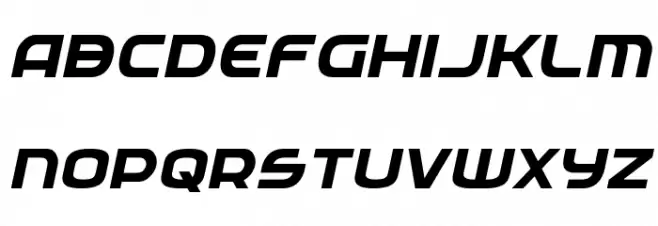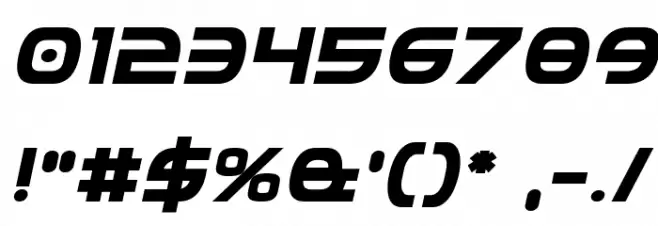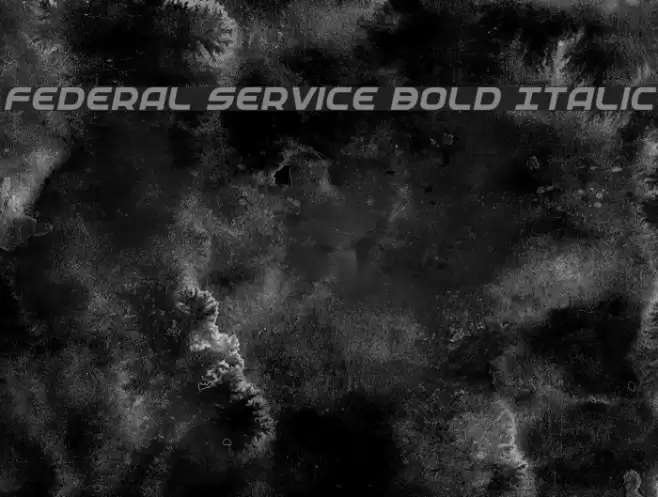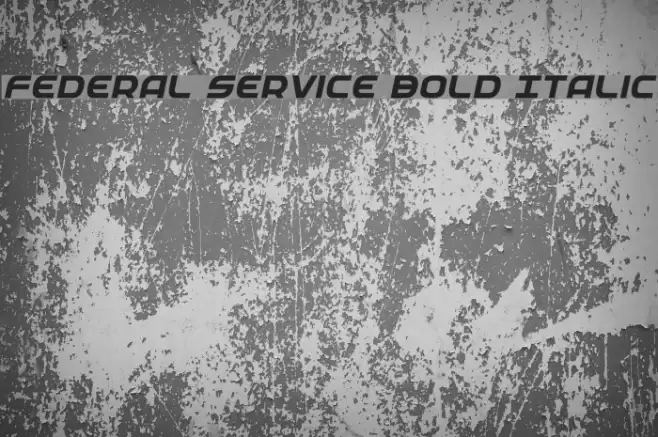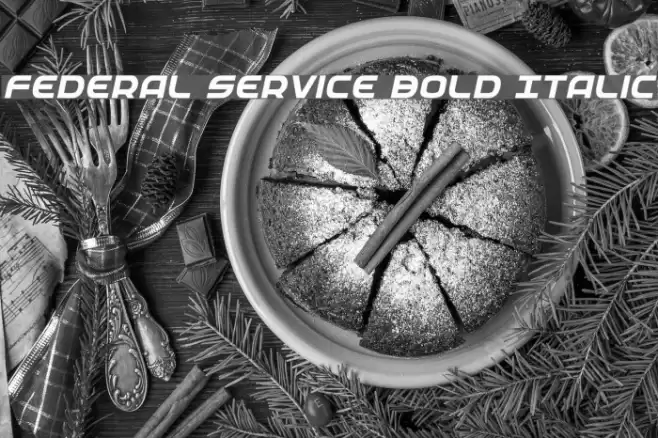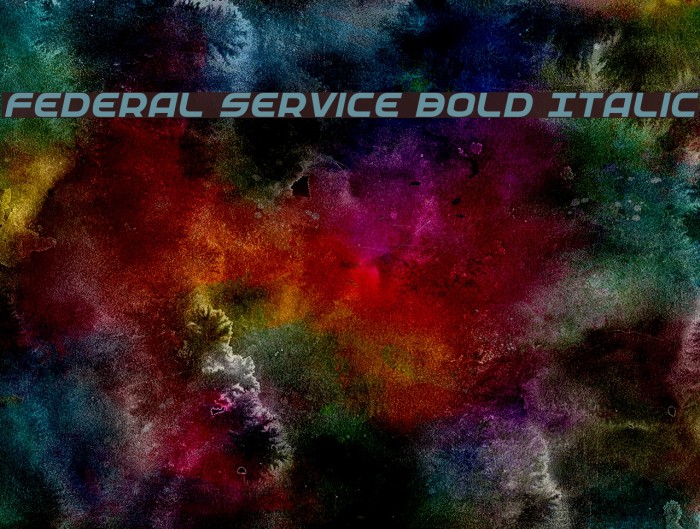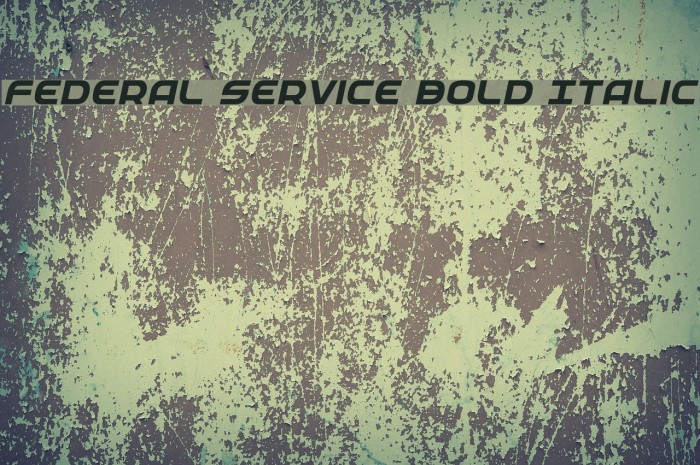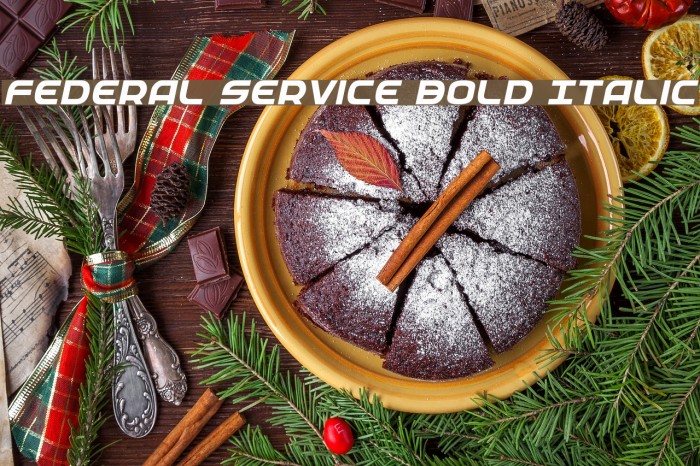
Federal Service Bold Italic
This font exhibits a bold and italicized style, characterized by its strong, dynamic appearance. The letters are slightly slanted, giving a sense of motion and energy. The strokes are thick and consistent, providing a robust and confident look. The design is modern, with a sleek and streamlined aesthetic that is both professional and eye-catching. The characters are well-spaced, ensuring readability while maintaining a compact form. This font is versatile, suitable for various applications where a bold statement is needed.
A bold, italicized font with a modern and dynamic style.
- Proposed Projects: Ideal for branding, advertising, headlines, and any project requiring a strong visual impact.
- Use Case: Headlines, Logos, Branding